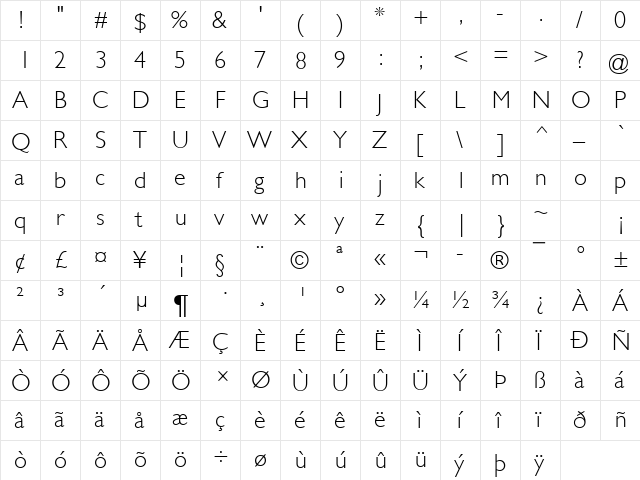
Gill Sans MT Light Regular
| Foundry | Monotype Typography |
| Designer | Eric Gill |
Design Context for Gill Sans MT Light Typeface
Gill Sans MT Light offers clean, dependable letterforms without strong stylistic allegiance, making it a practical choice for designers who need flexibility. The delicate stroke weight brings airiness and refinement to layouts.